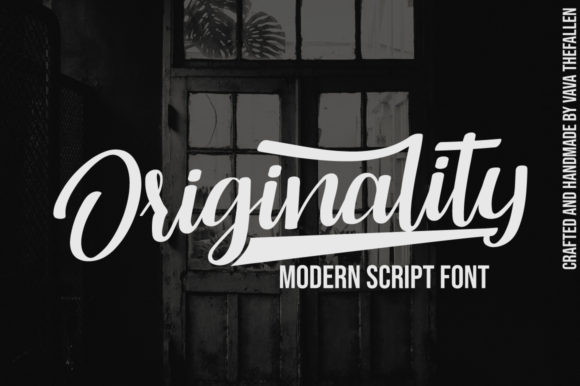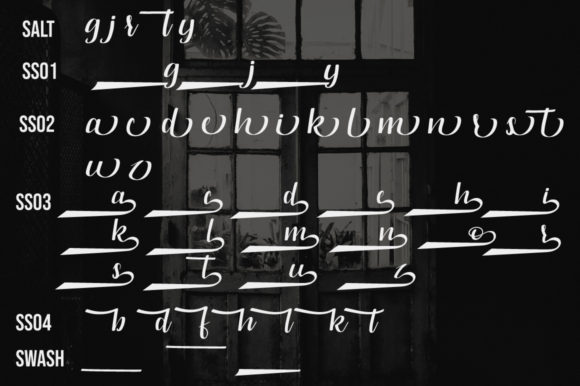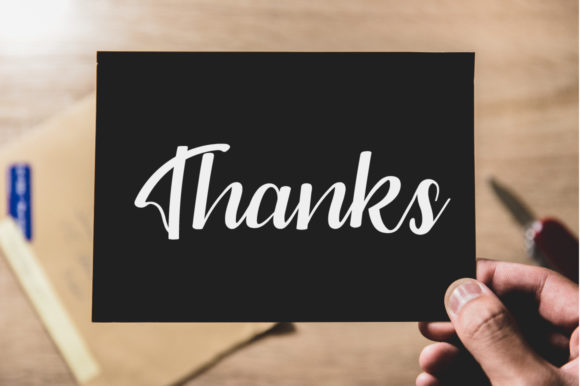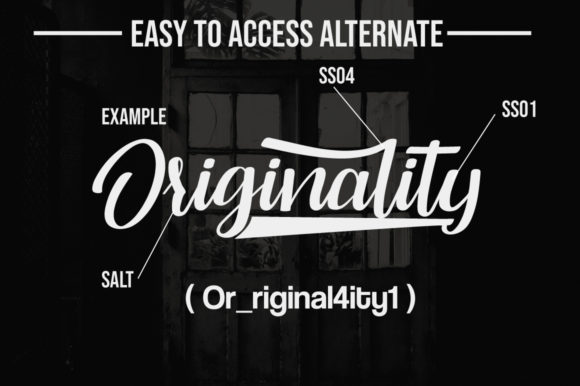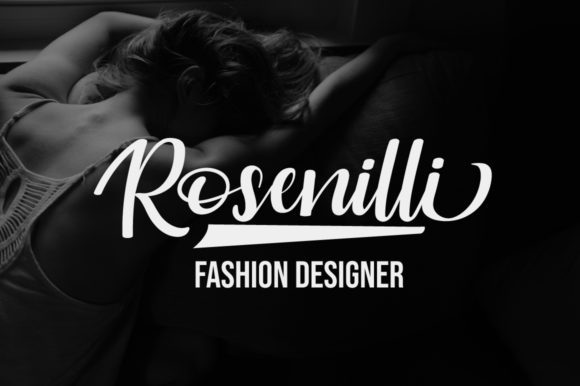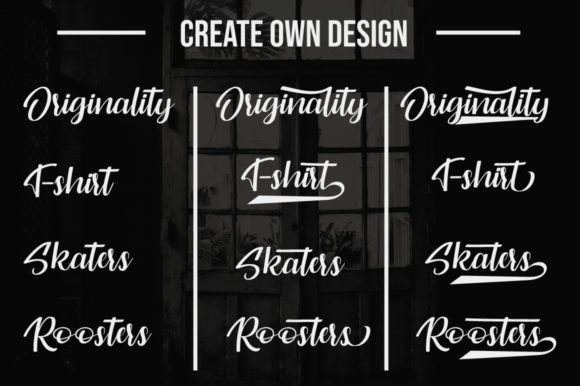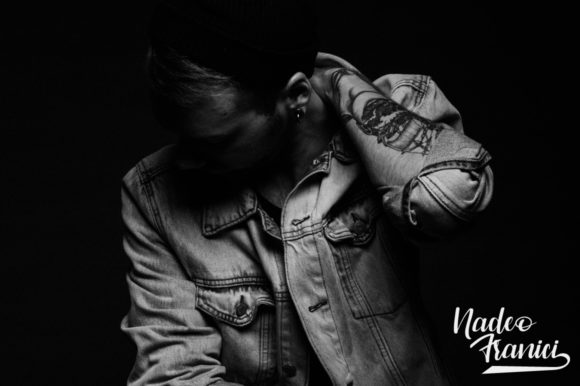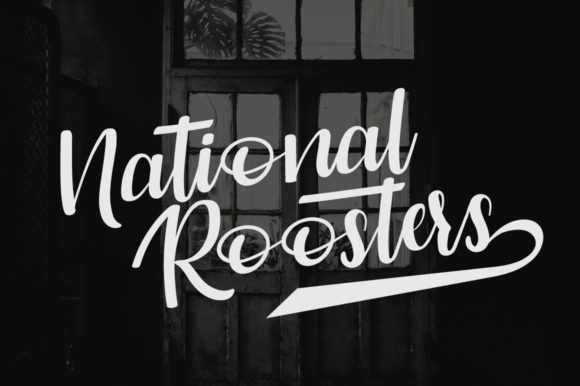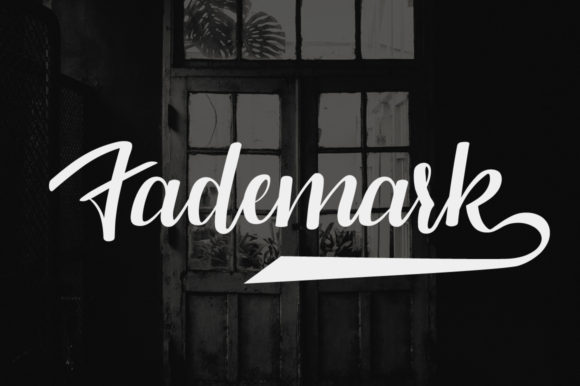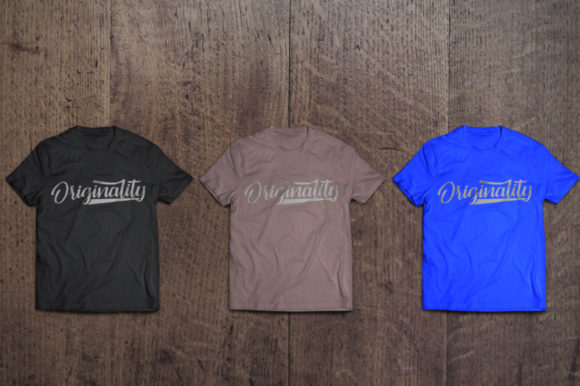
HomeScript FontsOriginality Script Font Script Fonts Originality Script Font FacebookXPinterestWhatsApp Originality Script Font Poster 2 Originality Script Font Poster 3 Originality Script Font Poster 4 Originality Script Font Poster 5 Originality Script Font Poster 6 Originality Script Font Poster 7 Originality Script Font Poster 8 Originality Script Font Poster 9 Originality Script Font Poster 10 Originality Script Font Poster 11 About Originality Script Font The Originality is a modern handwritten script font. It combines classic authenticity with modern style. DOWNLOAD NOW People also explored Ramban Font Pagi Ku Font Reading Rellaiya Font Delvon Bold Font Aventurine is a Monoline Handwritten Font Larispol Font Postcards from Paris Will Shering Font 275 0 TagsOriginality Script Font Previous articleGermiona FontNext articleBertilda Script Font LEAVE A REPLY Cancel reply Comment: Please enter your comment! Name:* Please enter your name here Email:* You have entered an incorrect email address! Please enter your email address here Website: Save my name, email, and website in this browser for the next time I comment. Personal Use Free Kaylafiz Personal Use Free Read more about this font Nulshock Bold Personal Use Free Read more about this font Dolce Vita Personal Use Free Read more about this font Bethania Personal Use Free Read more about this font BLOG Transform Your Website: Elevate Your Typography with 7 Best Web Font Generators Are you ready to transform your website's typography from ordinary to extraordinary? Great! Today, we're diving into the world of web font generators, which... Best Fonts for YouTube Videos: Make Your Thumbnails Stand Out Exploring Font Trends The 10 Best Handwriting Fonts to Add Personality to Your Designs